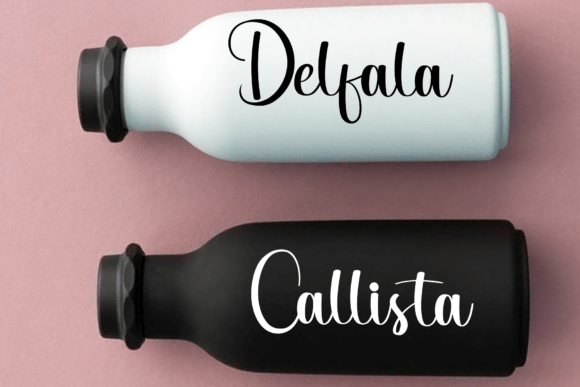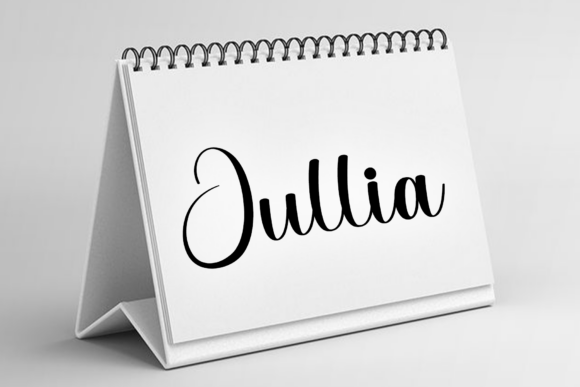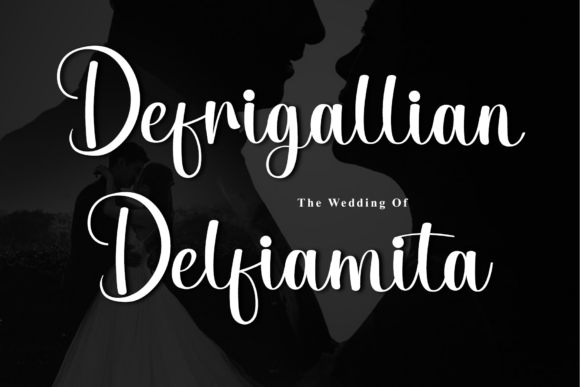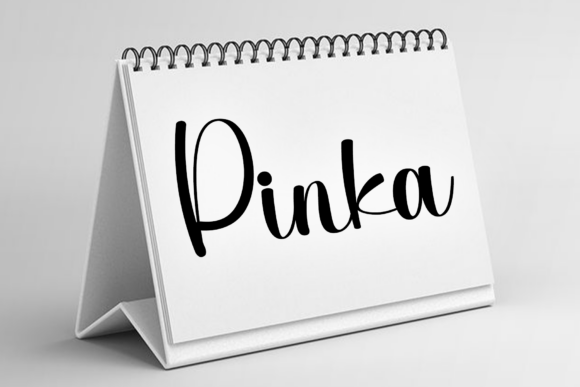
Introduction to Hulla Font
Have you ever found yourself in the midst of a creative project, surrounded by sketches and scribbles, desperately searching for the perfect font to bring your vision to life? For many designers, this is a familiar scenario, and the quest for the perfect font can be a daunting task. But what if I told you that I’ve discovered a font that’s not only beautiful but also versatile and easy to use? Say hello to the Hulla Font, a sweet and cursive handwritten font that’s sure to add a touch of joy and romance to any design.
As a designer, you know the value of having high-quality design resources at your fingertips. The Hulla Font is a game-changer, offering a transparent background that makes it easy to use on any creative project. Whether you’re working on a branding project, designing a wedding invitation, or creating a marketing campaign, this font is sure to impress.
Key Features of Hulla Font
- High-quality, unique font design ideal for creative projects requiring a distinctive touch.
- Transparent background option, enabling users to easily layer the font over images or other design elements.
- Designed to be highly legible at various resolutions, making it suitable for use in print and digital applications.
- Includes a comprehensive character set, including uppercase and lowercase letters, numerals, and special characters.
Honest Review: Hulla Font
I recently had the opportunity to work with the Hulla Font, a free download that’s quickly become a valuable design resource. I must say, I was impressed with the high quality and versatility of this font.
What works well: ✨ The Hulla Font has a unique, playful aesthetic that’s perfect for creative projects that require a bit of whimsy. The transparent background option allows for seamless integration into any design, making it a great choice for backgrounds, textures, and more.
The font itself is highly customizable, with a wide range of styles and sizes available. I appreciate how easy it is to use and how it adapts well to different screen resolutions.
- Unique and playful aesthetic
- Easy to use
Overall, I’m impressed with the Hulla Font and would definitely recommend it for personal or creative projects. Its high quality and versatility make it a valuable design resource.
Hulla Font
The Hulla Font is a versatile and high-quality design resource perfect for creative projects. It’s available for free download and can be used with a transparent background, giving you the flexibility to customize your designs.
Tips for Getting the Most Out of Hulla Font
To get the most out of the Hulla Font, use it in combination with other high-quality design resources, such as images and graphics. Experiment with different font sizes and colors to create a visually appealing design.
The Hulla Font is perfect for a variety of creative projects, including:
- Posters and social media graphics
Does the Hulla Font include a transparent background option?
Yes, the Hulla Font is designed with a transparent background, making it ideal for use on high-quality design projects where a seamless background is required. This feature is especially useful for designers working on creative projects that require a clean and minimalist aesthetic.